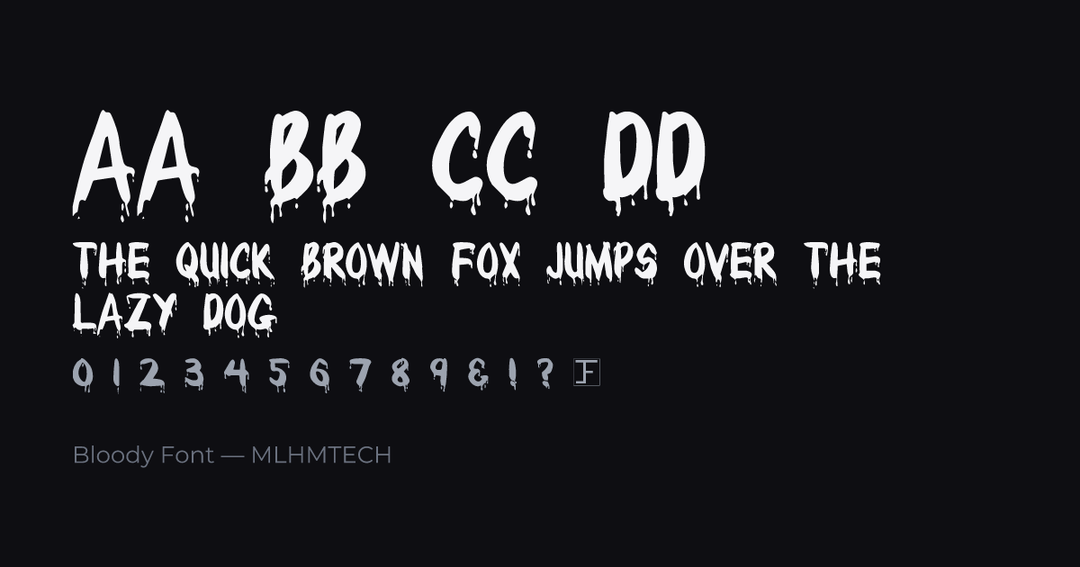
Bloody Font
Bloody Font is a horror-themed display typeface with dripping blood details, ideal for adding a gruesome touch to your designs.
Bloody Font is a striking display typeface that embodies horror and gore. Each letter appears to be coated in dripping blood, making it perfect for Halloween invitations, horror movie posters, haunted house promotions, or any project that needs a macabre edge.
Use Bloody Font to create impactful titles, logos, or merchandise that demands attention. Whether you're designing for a haunted attraction or a heavy metal band, this font will set the right tone.